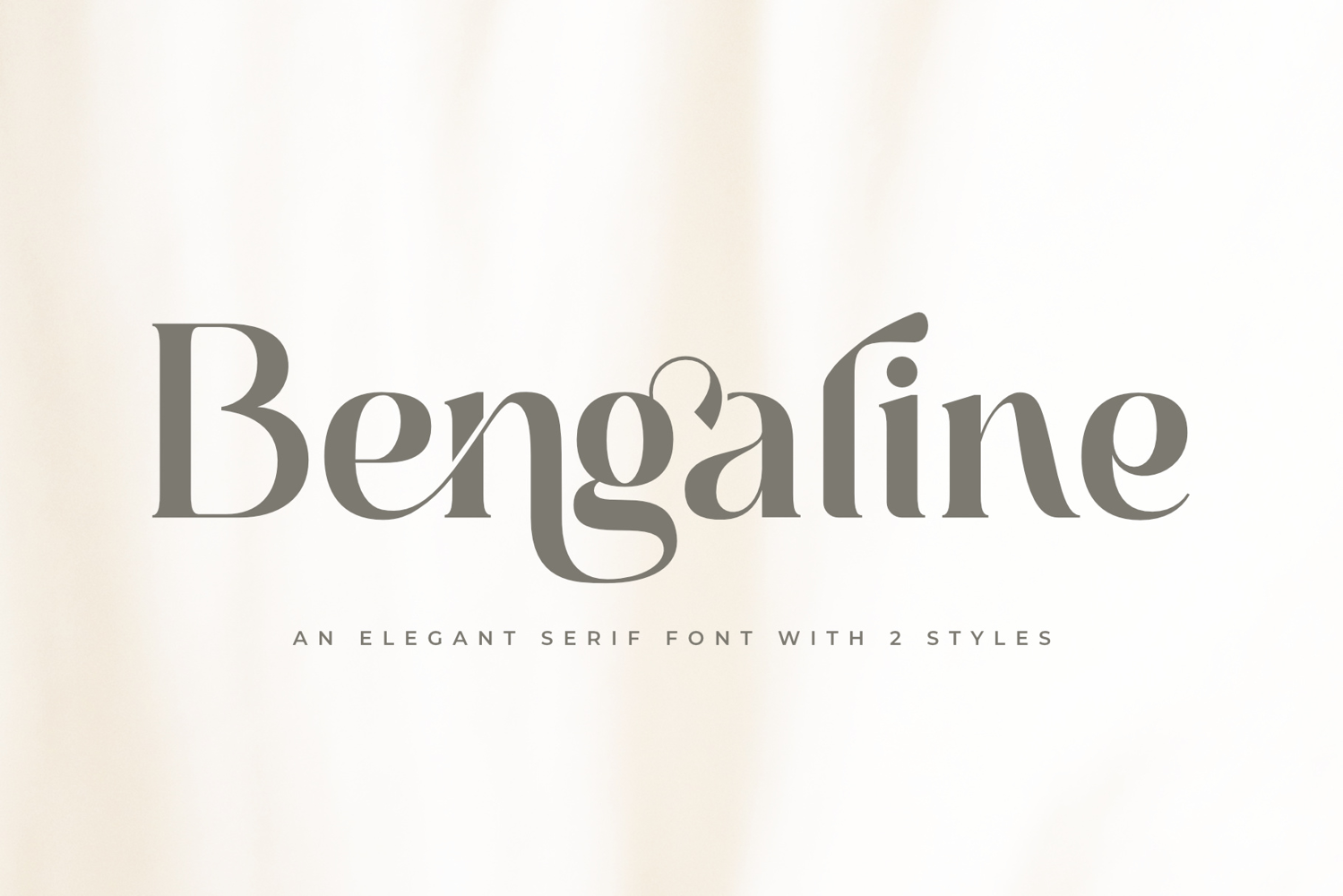
Bengaline | A Elegant Serif Font With Two Styles
Bengaline
Bengaline Round
Introducing Bengaline, a new serif font meticulously crafted to bring sophistication and elegance to your projects. With its refined and stylish shapes, Bengaline is more than just a typeface—it's a statement. Perfect for designers, brands, and businesses looking to convey a sense of class and prestige, this font is the ideal choice for a variety of high-end applications.
Bengaline stands out with its dual-style design, offering both a classic Regular and a modern Rounded version. This versatility makes it easy to adapt to different moods and aesthetics. Use the Regular style for a timeless and traditional look, perfect for formal invitations, luxury product packaging, and editorial design. Switch to the Rounded style to add a touch of softness and friendly sophistication to modern logos, website headers, and social media graphics.
When it comes to building a strong brand identity, typography is key. Bengaline's elegant curves and balanced letterforms are designed to make your brand unforgettable. It's the perfect font for logotypes, branding, and corporate identities where a luxurious and refined feel is essential. Beyond branding, Bengaline is also a powerful tool for book covers, magazine layouts, web design and packaging
• Ligatures & Alternates